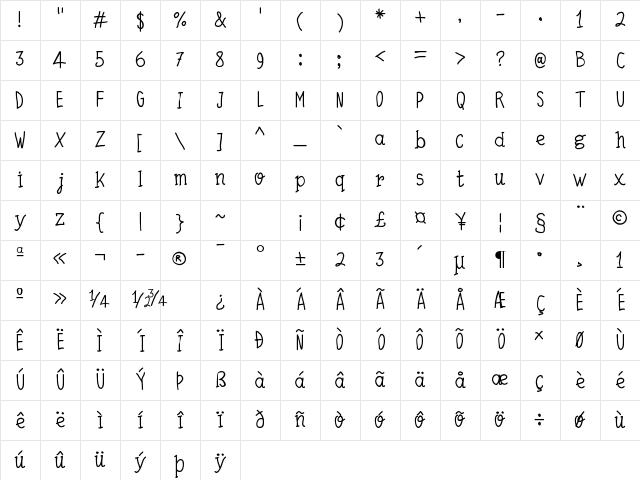
Quick Writing Regular
Foundry: Galdino Otten
Designer: ￿ Galdino Otten
Design Context for Quick Writing
Quick Writing is a composed and adaptable typeface that performs quietly and consistently across a wide range of design contexts.